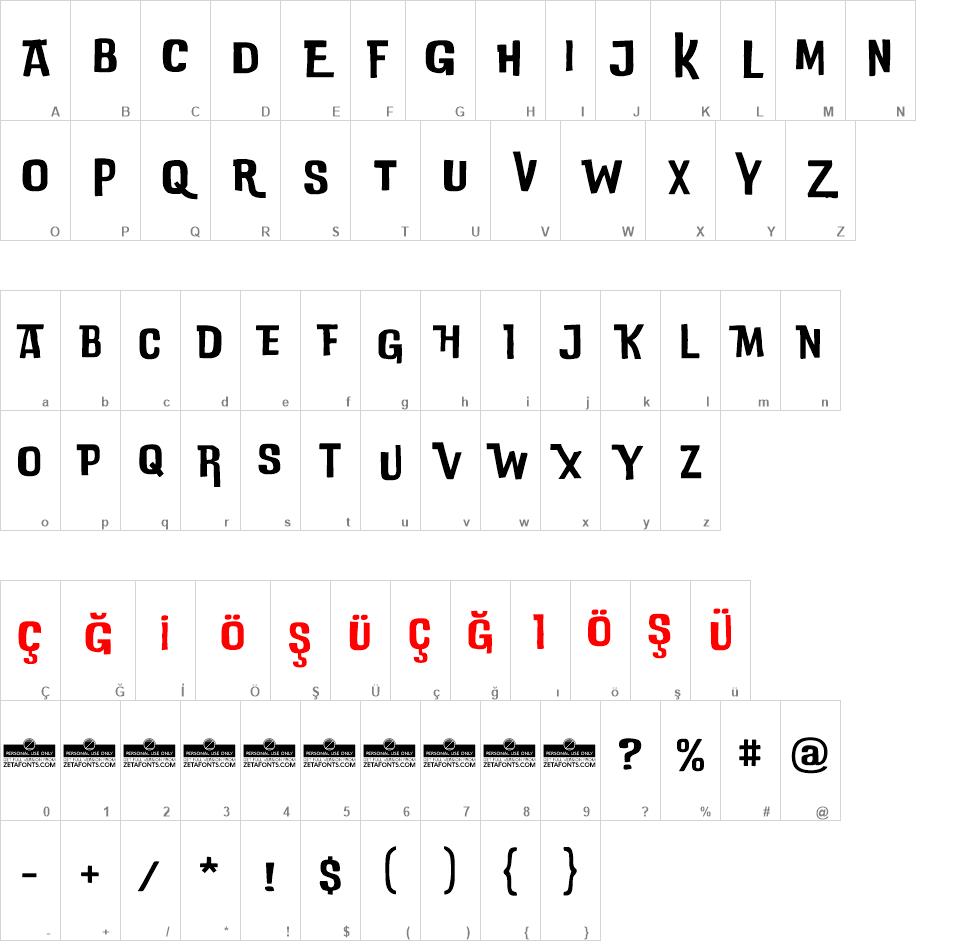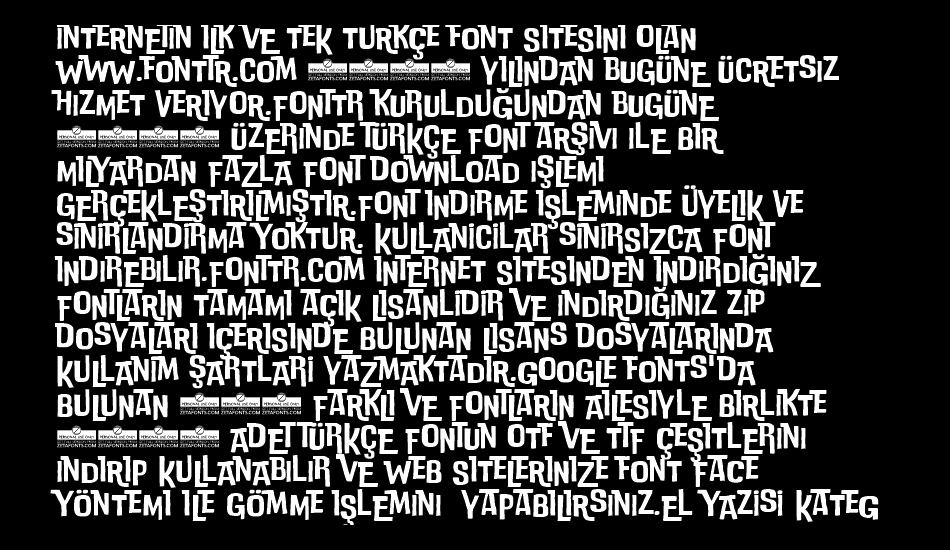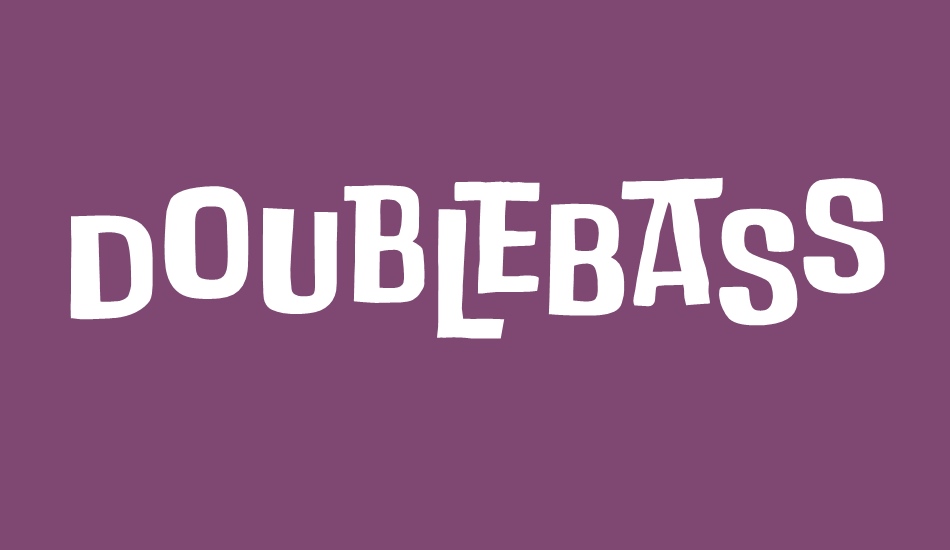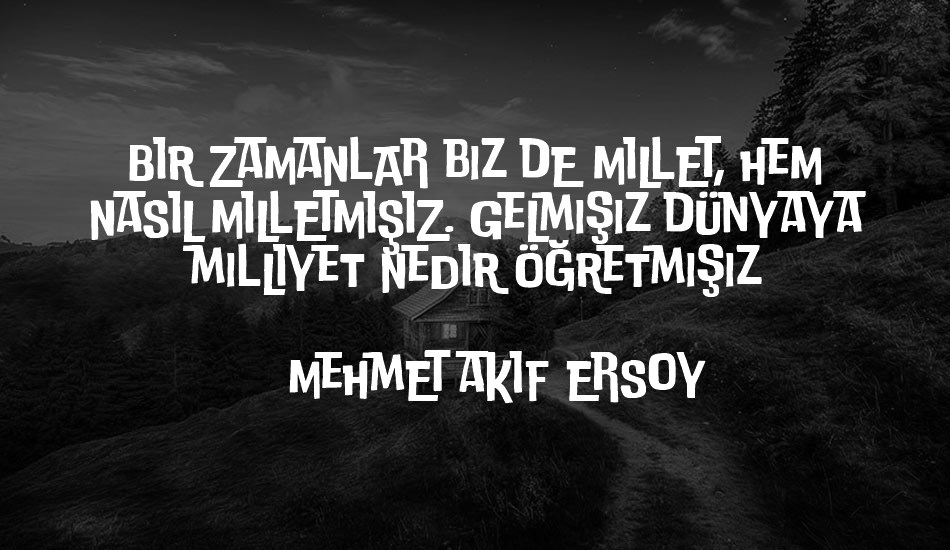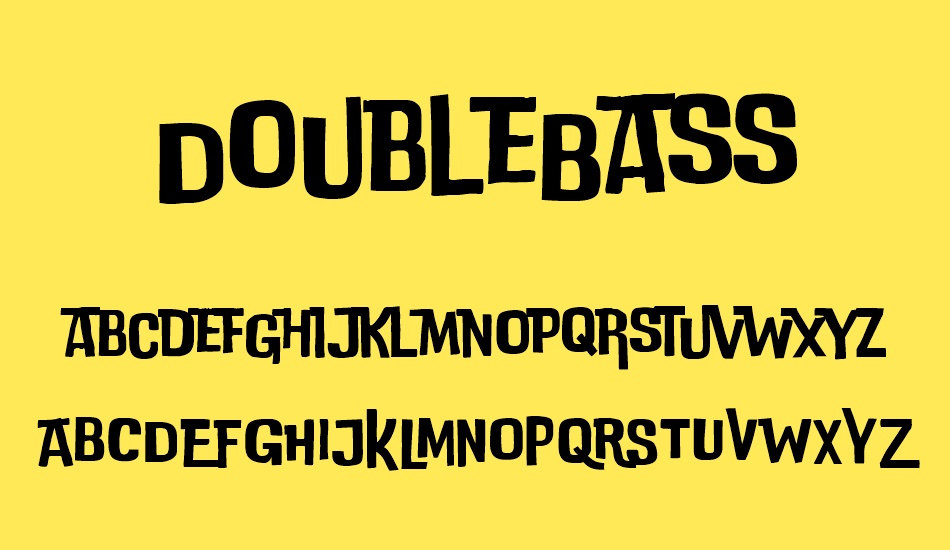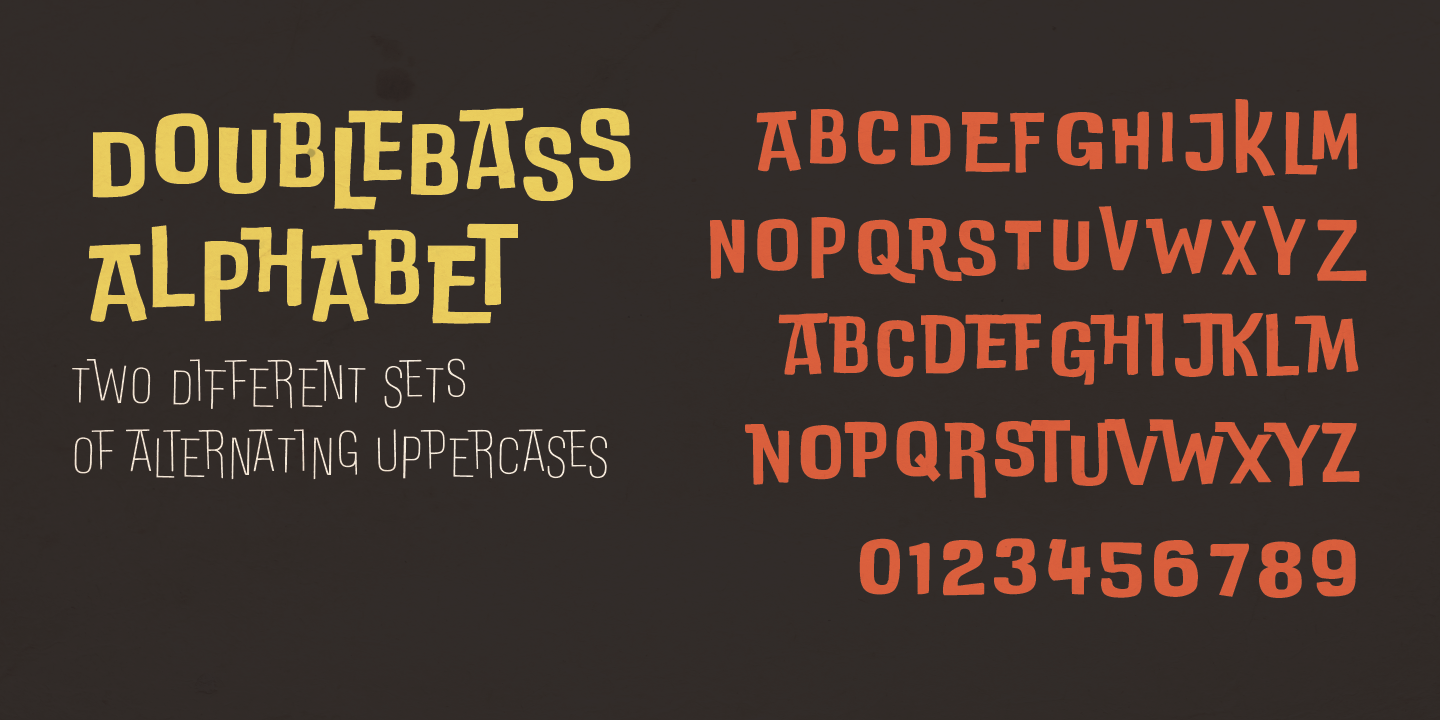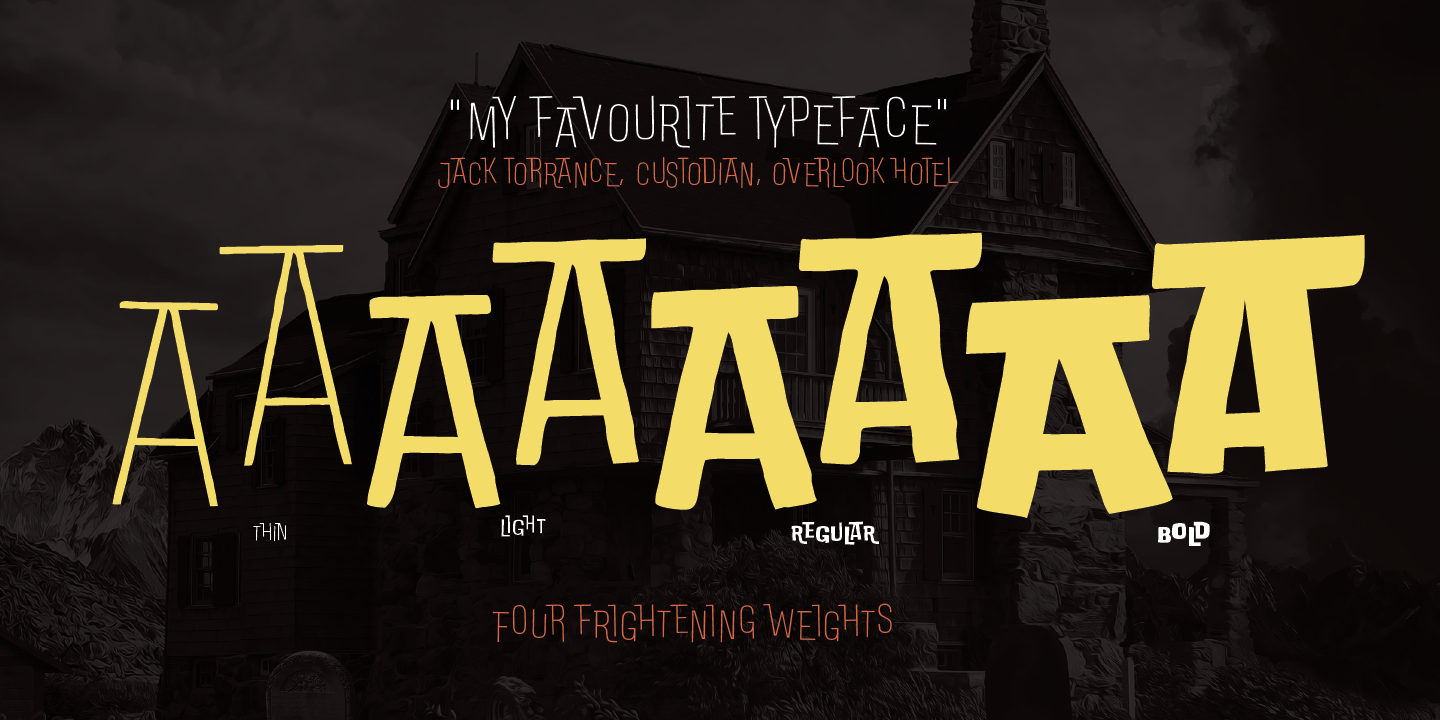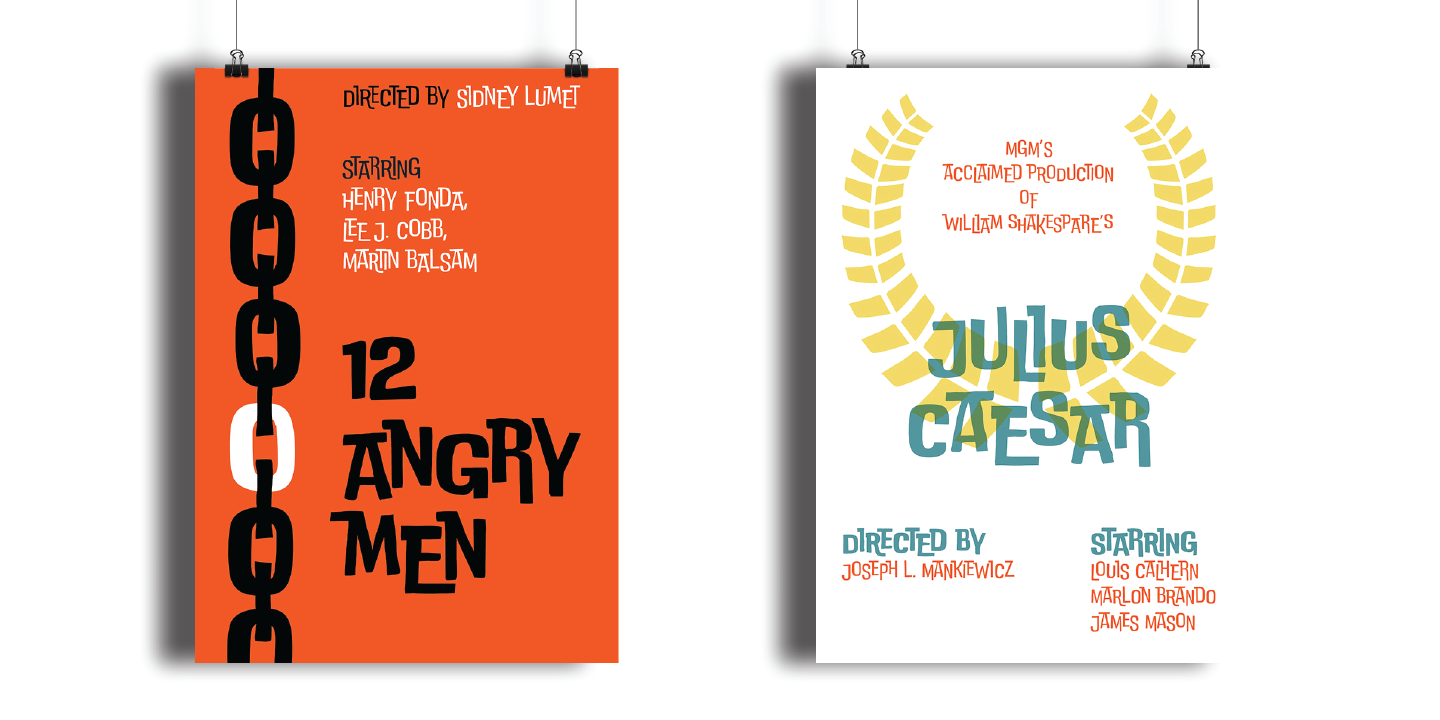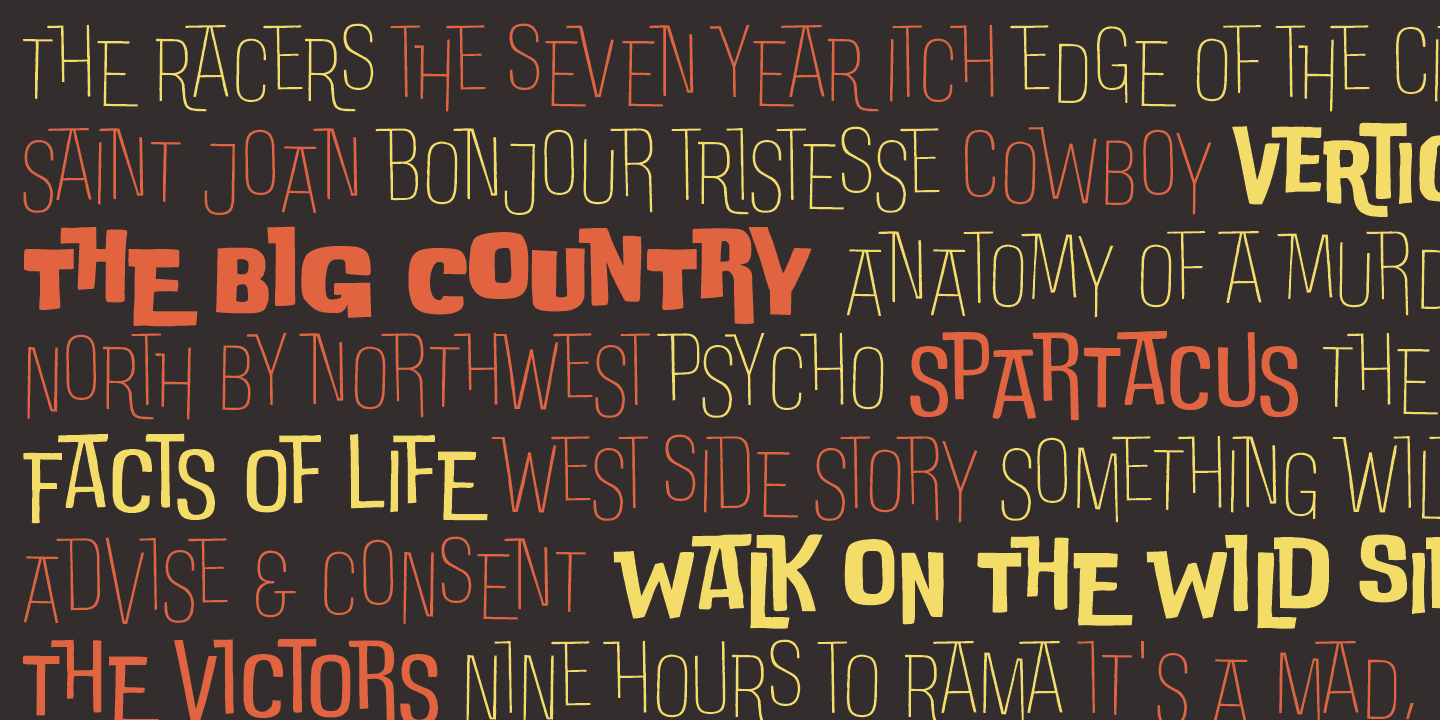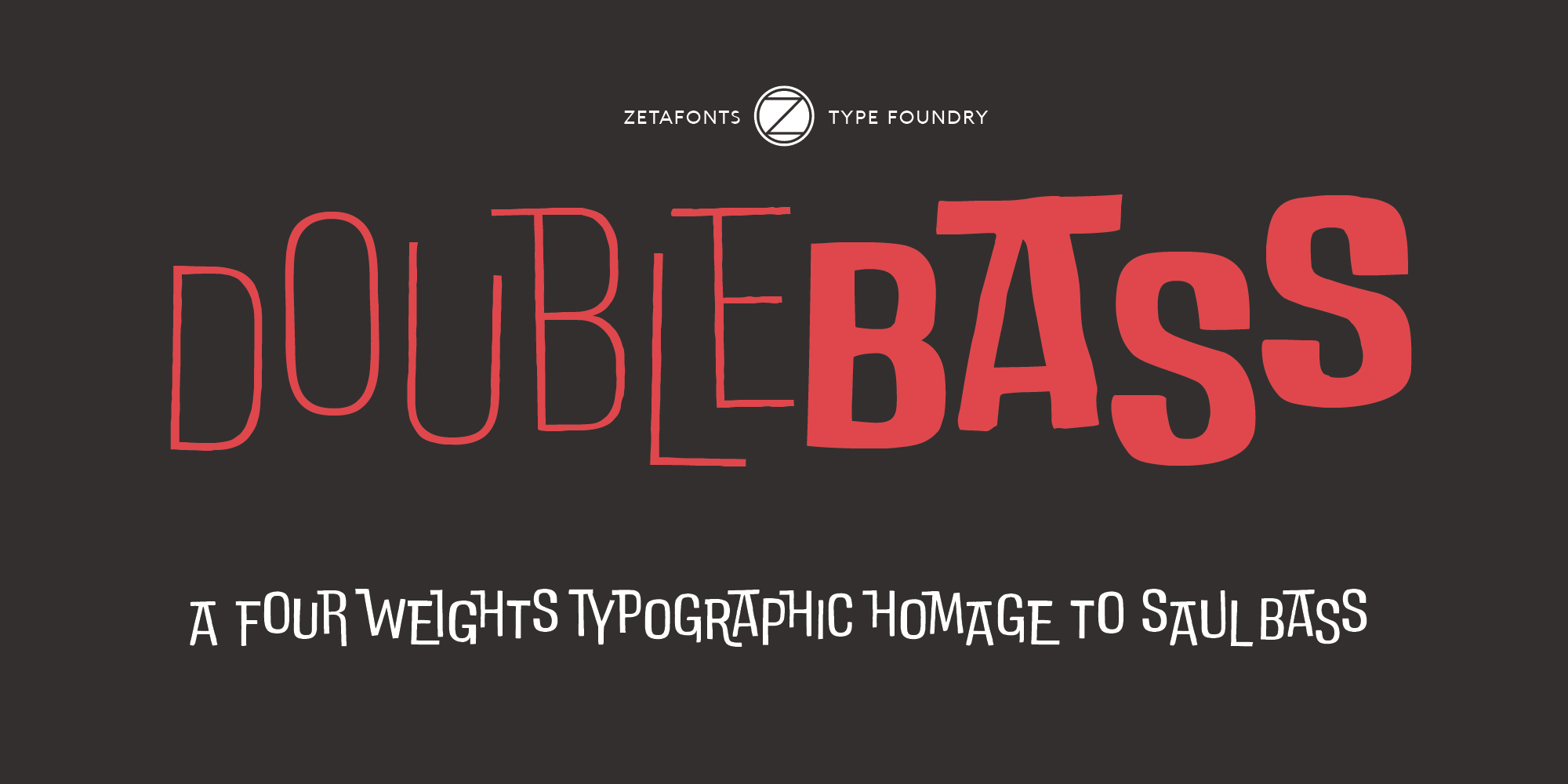
DoubleBass font
DoubleBass Font
DoubleBass is a four weights display type family with a cartoon modern aesthetic, inspired by the film title design of Saul Bass. Its main feature is the programmed switching between two interlocking sets of uppercases resulting in a bouncy visual rhythm. DoubleBass looks great in logos and titling and covers +70 languages including Russian cyrillic.